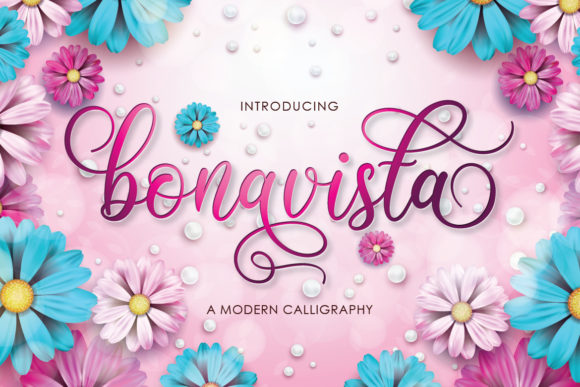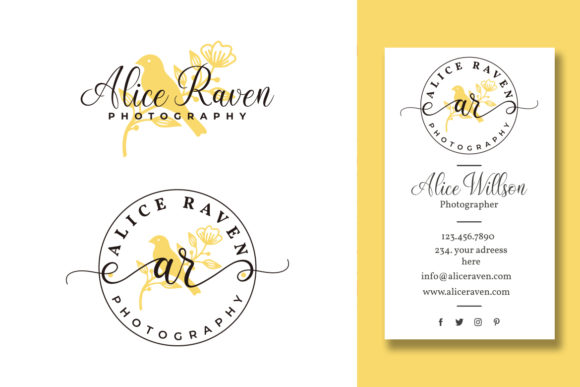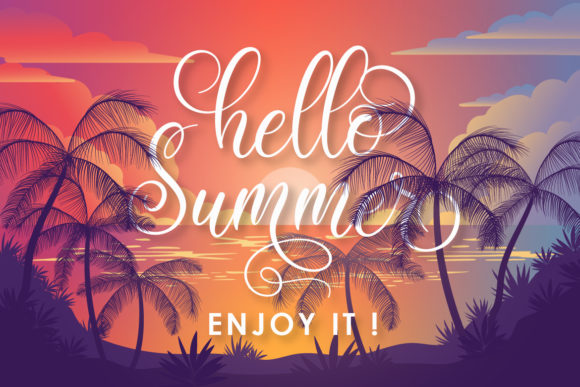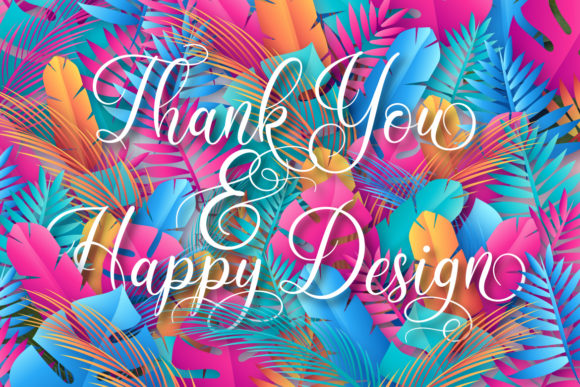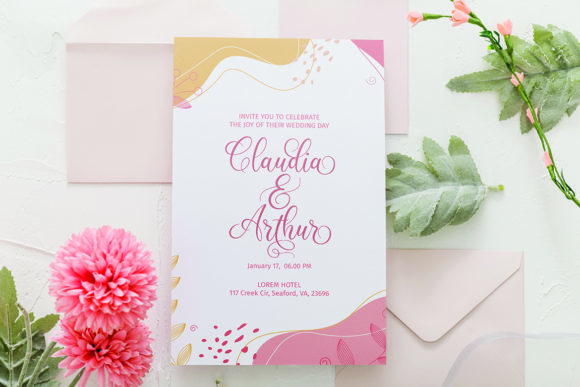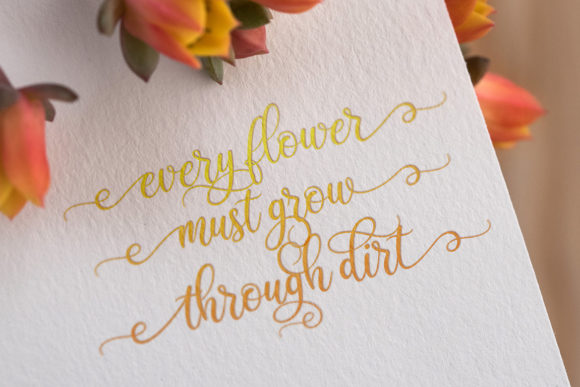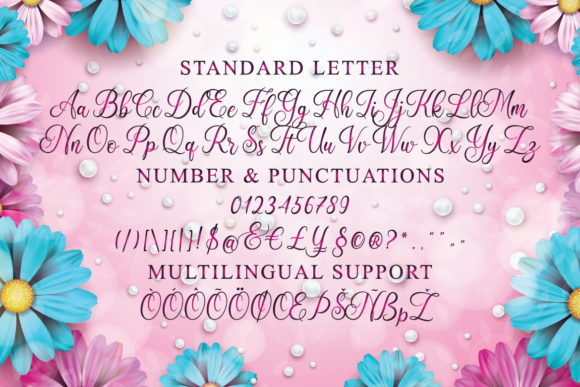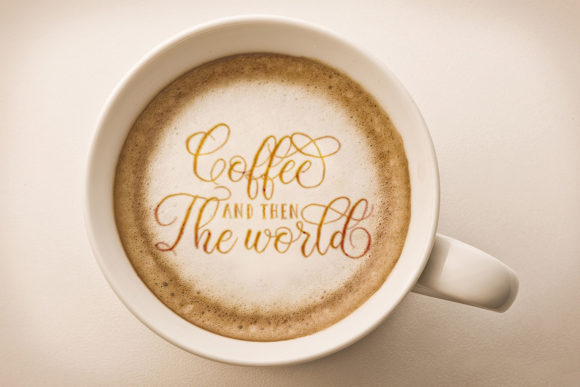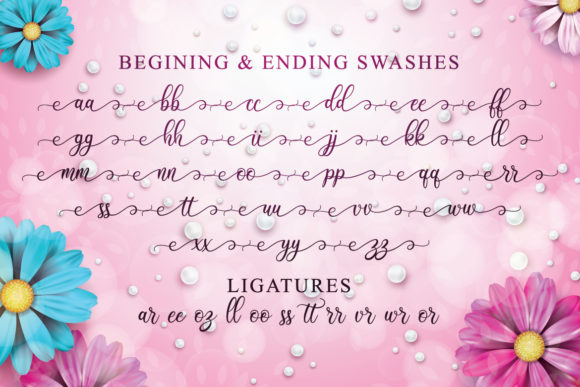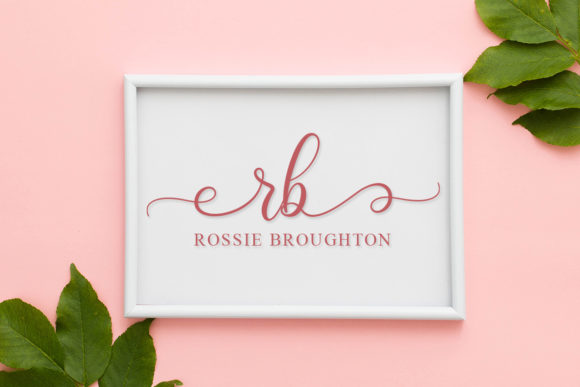
Bonavista Font
About Bonavista Font
Bonavista is an elegant and flowing handwritten font. It is PUA encoded which means you can access all of the glyphs and swashes with ease! It features a varying baseline, smooth lines, gorgeous glyphs and stunning alternates. It maintains its classy calligraphic influences while feeling contemporary and fresh. Fall in love with Bonavista and bring your projects to the highest levels!